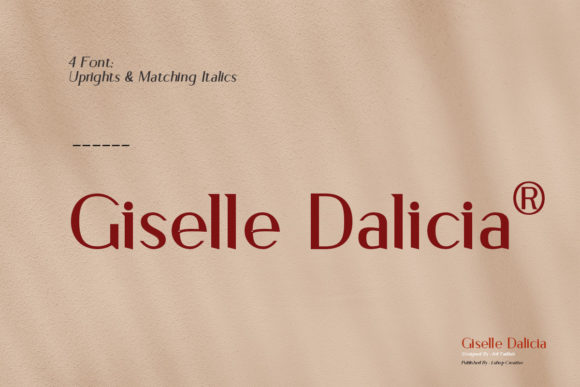
Behold, where timeless elegance meets modern allure, introducing Giselle Dalicia, the serif font that captivates hearts with its refined beauty and enchanting charm. A creation of the esteemed Luhop Creative, Giselle Dalicia is not just a font; it's an artistic masterpiece that elevates your designs to new heights of sophistication.
With its graceful curves and delicate strokes, Giselle Dalicia dances across the page, inviting you to immerse yourself in its enchanting world. Each letterform is a testament to the artistry that went into its creation, a visual symphony that harmonizes perfectly with your creative vision.
Journey through the realm of design possibilities with Giselle Dalicia as your trusted companion. Transform ordinary words into captivating headlines, mundane invitations into exquisite keepsakes, and lifeless social media posts into vibrant expressions of your creativity.
Picture the awe and admiration as your audience encounters your designs adorned with Giselle Dalicia. Witness the magic as your wedding invitations exude elegance, your stationary art radiates beauty, and your social media posts spark conversations.
Indulge in the versatility of Giselle Dalicia. Its effortless charm transcends genres and styles, seamlessly adapting to a myriad of creative endeavors. Whether you're crafting a timeless magazine layout, designing a captivating logo, or creating eye-catching posters, Giselle Dalicia is your font of choice.
Embrace the allure of Giselle Dalicia and watch as your designs blossom into breathtaking works of art. Experience the joy of creating with a font that not only enhances your designs but also ignites your imagination.
Elevate your creative journey to new heights with Giselle Dalicia. Its beauty is undeniable, its versatility unmatched, and its ability to captivate your audience is simply magical. Surrender to its enchanting charm and let Giselle Dalicia transform your designs into masterpieces that leave an indelible mark on the world.